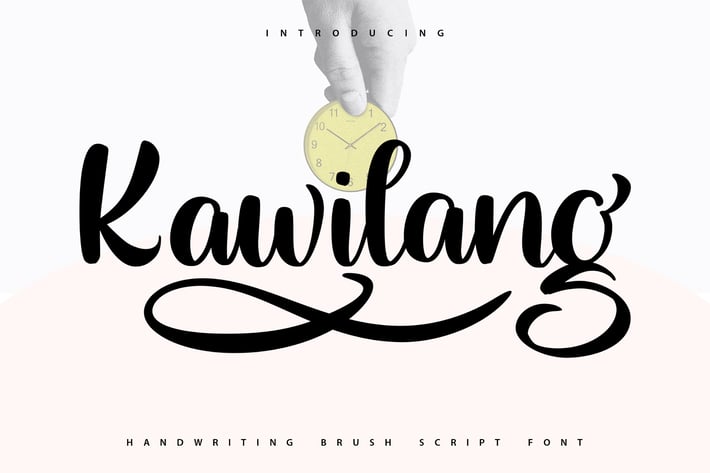
Kawilang | Handwriting Brush Font
Kawilang | Handwriting Brush Font with a calligraphy style, So beautiful on invitation like greeting cards, branding materials, business cards, quotes, posters, and more!